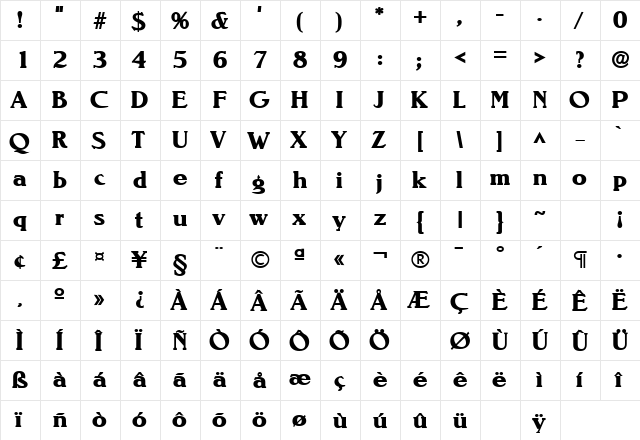
NevadaLH Bold
Design Context for NevadaLH Typeface
NevadaLH is a composed and adaptable typeface that performs quietly and consistently across a wide range of design contexts. The heavy weight commands attention and anchors typographic hierarchies.